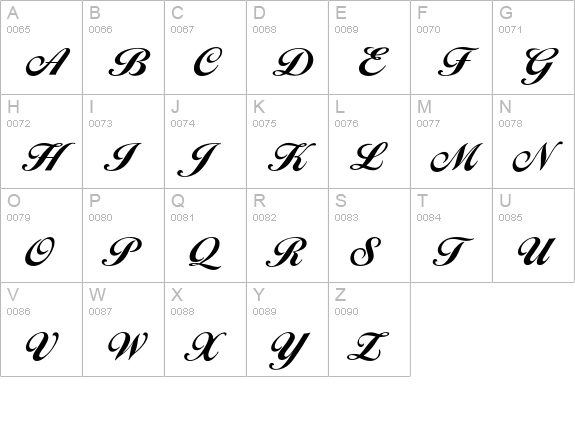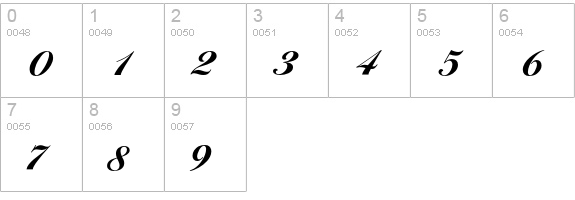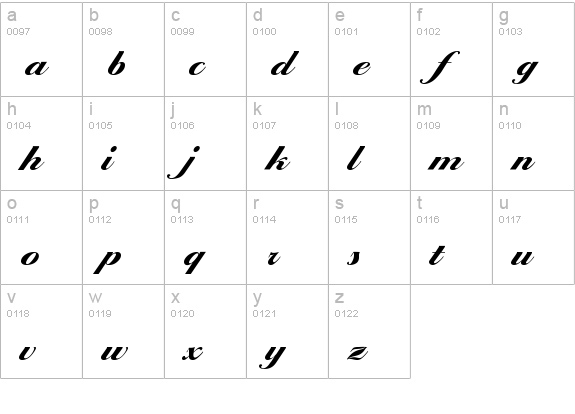
BallantinesScriptEF-ExtraBold Font Details
BallantinesScriptEF-ExtraBold is an extra-heavy, attention-grabbing variant in the BallantinesScriptEF typeface family \xE2\x80\x94 well suited to high-impact headlines, posters, and bold branding.
BallantinesScriptEF-ExtraBold is a stunning and elegant font that exudes sophistication and charm. With its bold and distinct style, this font is perfect for creating eye-catching designs that demand attention. The graceful curves and sleek lines of BallantinesScriptEF-ExtraBold add a touch of luxury to any project, making it ideal for invitations, logos, branding, and more. The best part about BallantinesScriptEF-ExtraBold is that it is completely free to download at FontsMarket.com. This means that you can easily access this beautiful font and use it in your designs without any cost or hassle. Whether you're a professional designer or just starting out, BallantinesScriptEF-ExtraBold is a versatile and stylish font that will elevate your projects to the next level. Download it today and let your creativity shine with this exquisite typeface.